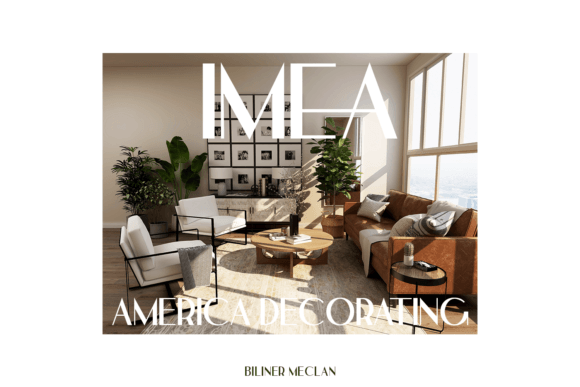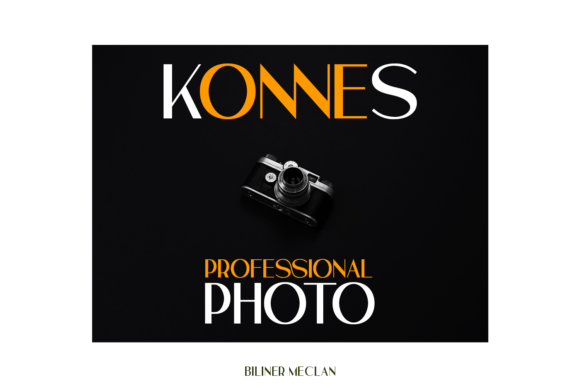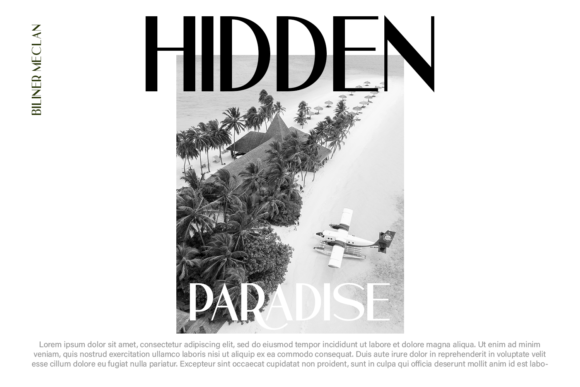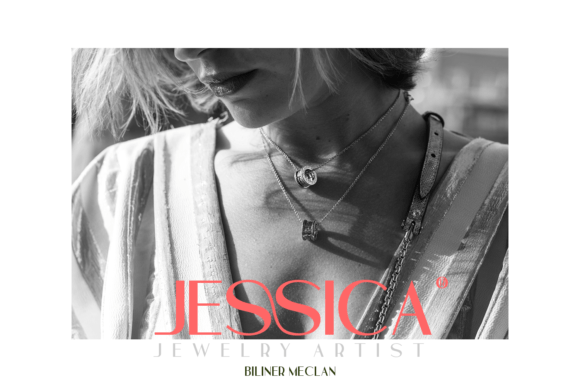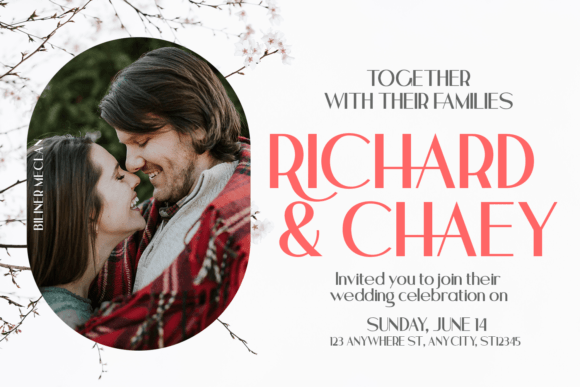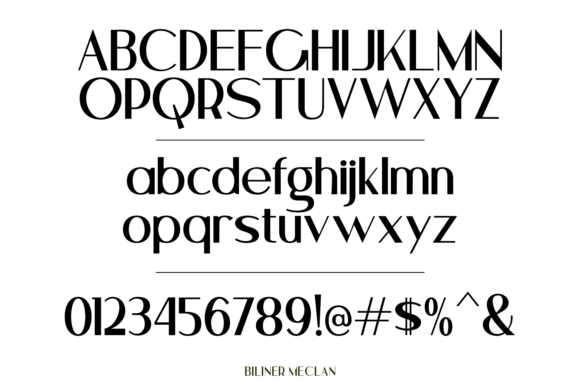
Biliner Meclan Font: Elevate Your Design with Clean and Modern Minimalism
In the world of typography, a well-crafted font can make all the difference in elevating a design project from ordinary to extraordinary. Introducing Biliner Meclan, a clean and modern minimalist sans-serif font that embodies clarity, simplicity, and timeless elegance. Designed to convey a sense of sophistication and refinement, Biliner Meclan is the perfect choice for designers and crafters seeking a versatile and stylish font for their creative endeavors.
The Essence of Minimalism
Biliner Meclan’s design philosophy revolves around the principles of minimalism, where every element serves a purpose and nothing is extraneous. The font’s sleek lines, balanced letterforms, and subtle rounded edges come together to create a harmonious visual experience that exudes calmness and serenity. This understated approach allows Biliner Meclan to seamlessly integrate into various design contexts, from digital platforms to print materials.
Key Features of Biliner Meclan
- Clean and Modern Design: Biliner Meclan boasts a crisp, contemporary aesthetic that instantly captures attention and conveys a sense of sophistication.
- Minimalist Sans-Serif: The font’s sans-serif design ensures clarity and legibility, making it suitable for body text, headings, and titles.
- Balanced Letterforms: Each letterform is meticulously crafted to achieve perfect balance and harmony, resulting in a visually appealing text flow.
- Subtle Rounded Edges: The font’s subtle rounded edges add a touch of warmth and approachability, preventing the design from feeling too sterile or rigid.
Biliner Meclan’s versatility is one of its most compelling attributes, making it an excellent choice for a wide range of design applications. Whether you’re working on:
- Headings and Titles: Biliner Meclan’s clean lines and elegant curves make it perfect for attention-grabbing headings and titles.
- Body Text: The font’s exceptional legibility ensures that your content is easily readable, even in smaller font sizes.
- Logos and Branding: Biliner Meclan’s unique blend of modernity and sophistication makes it an excellent choice for logos, wordmarks, and brand identities.
- Digital and Print Materials: The font’s adaptability ensures that it looks great in various mediums, from websites and mobile apps to brochures, posters, and business cards.
Why Choose Biliner Meclan?
In a world where typography plays a crucial role in shaping brand identities and user experiences, Biliner Meclan offers a distinctive combination of style, versatility, and functionality. By choosing Biliner Meclan, designers and crafters can:
- Elevate Their Designs: Add a touch of sophistication and elegance to their projects.
- Improve Readability: Ensure that their content is easily readable and engaging.
- Streamline Their Workflow: Rely on a single font that can adapt to various design applications.
Biliner Meclan is a masterfully crafted font that embodies the principles of clean design, modern minimalism, and timeless elegance. Its versatility, readability, and sophistication make it an excellent choice for designers and crafters seeking to elevate their design projects. Whether you’re working on a digital platform, print material, or brand identity, Biliner Meclan is sure to bring a sense of refinement and style to your creations.